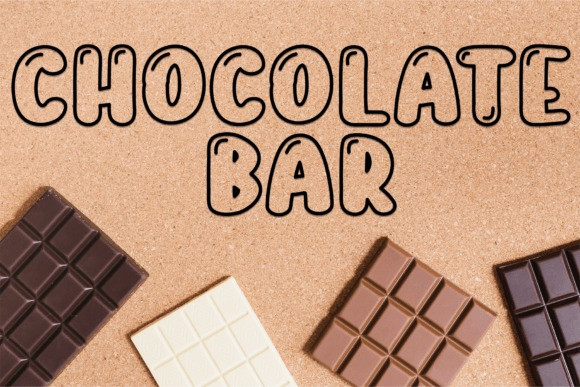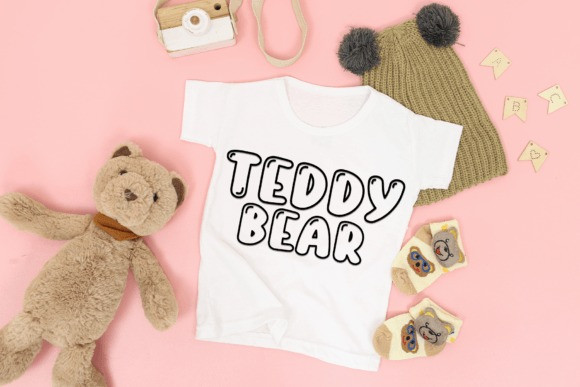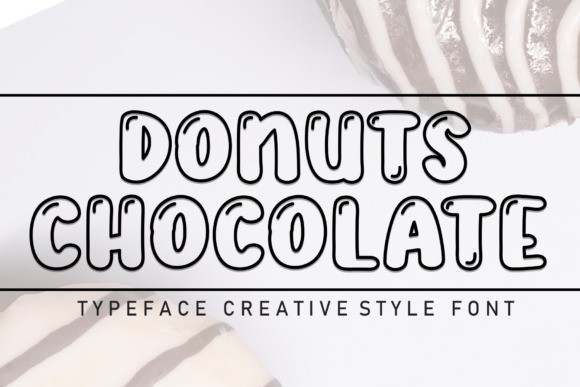
Donuts Chocolate Font
Donuts Chocolate Font is a sweet and friendly handwritten display font. Fresh and casual, this font is ideal for writing wedding invitations, cards, or any other design that might need a lovely touch.